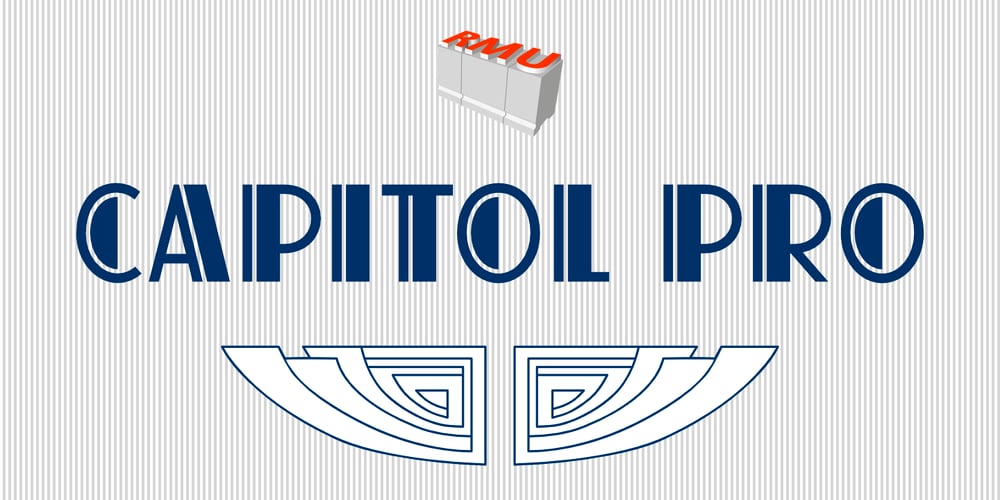
Capitol Pro Font Family was designed by Ralph M. Unger and published by RMU. Capitol Pro contains 1 styles and family package options. Like a phoenix from the ashes – here comes Capitol Pro, a complete redesign of Schriftguss’ 1931 Capitol font of which just a few letters existed.